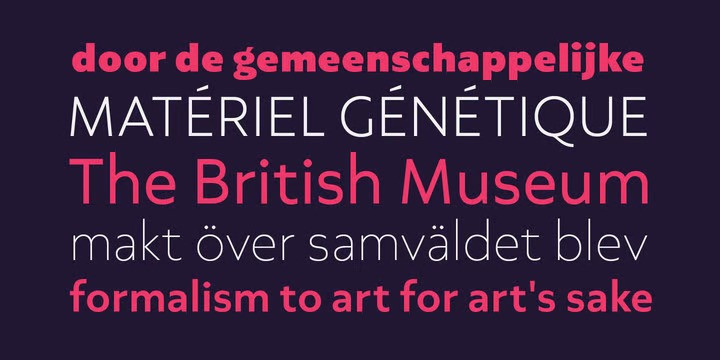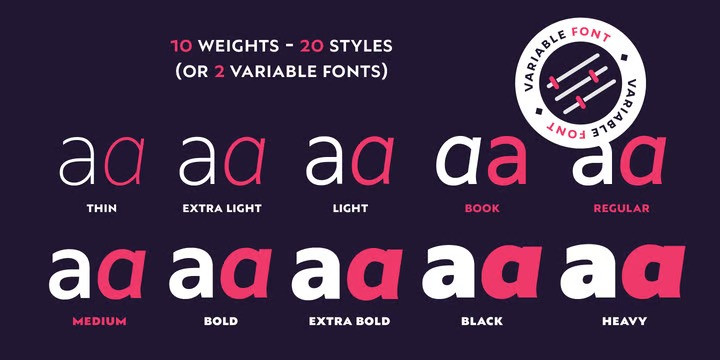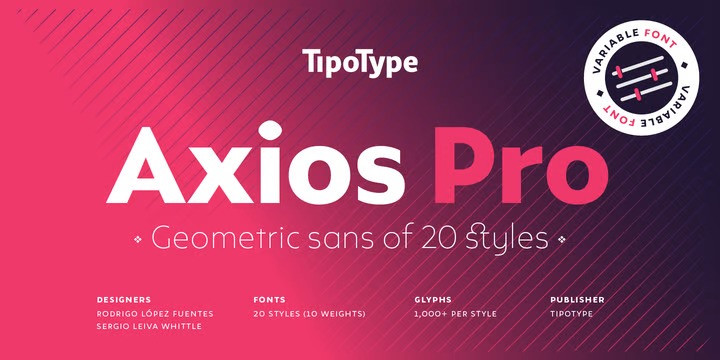
Axios Pro Font
How outstanding! Axios Pro Sans Serif Font Family, In Axios Pro the rational language of the early XX century geometric sanserifs is complemented with an structure deeply attached to the renaissance typefaces; the uppercase proportions proceed form the roman canon while its lowercase was constructed following the humanist ductus. This blend produce a typeface of modern, clean and contemporary appearance that has implicit on its core a classic vibe, nourishing the text with a timeless elegance.In use, the form and function balance of its design allow it freely travel through a diverse range of fields and possibilities like short text settings, brands, headlines or signage systems with grace and naturality.
Axios Pro is available in variable font format and in 20 different individual styles (10 weights), with a set of more than 1000 glyphs per style, supports over 200 latin languages and including an extensive repertoire of opentype features like small caps, ligatures, stylistic alternates, proportional and tabular figures, swashes, borders and many other resources to please your typographic urges.